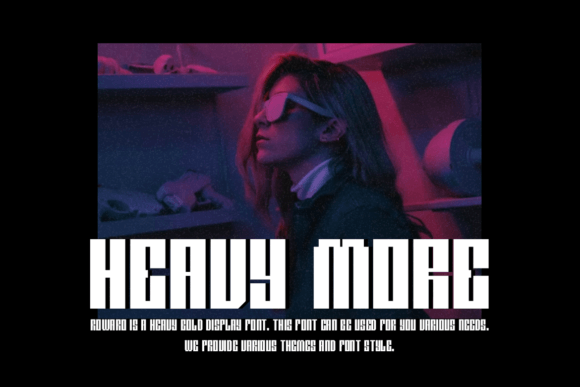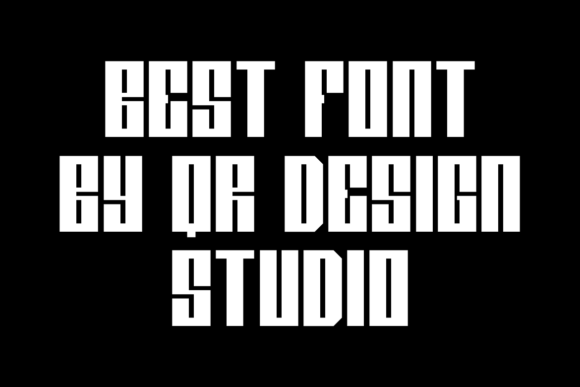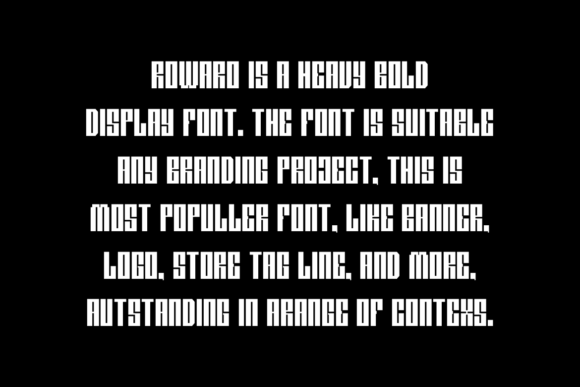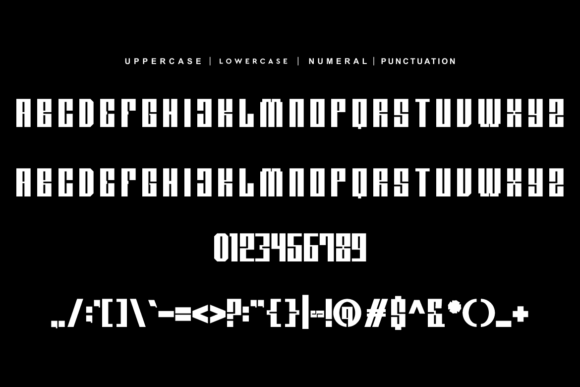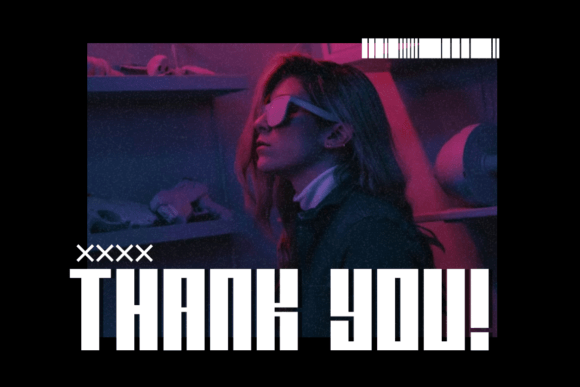
Introduction to Rowaro Font
As a designer, have you ever found yourself stuck on a creative project, struggling to convey the perfect message through typography? We’ve all been there, searching for that one font that will elevate our design and leave a lasting impression. For those seeking a bold and authentic display font, look no further than the Rowaro Font.
With its high-quality design, the Rowaro Font is a valuable resource for designers looking to add a touch of sophistication to their work. Whether you’re creating logos, product packaging, or signage, this font is sure to make a statement. And the best part? You can download it for free, complete with a transparent background, making it easy to integrate into your design project.
Key Features of Rowaro Font
- High-quality, professional design resource suitable for various creative projects
- Features a large character set, making it ideal for multilingual projects
- Supports a wide range of resolutions, ensuring crisp and clear text display at various zoom levels
- Designed with a modern and sleek aesthetic, perfect for contemporary design projects
Honest Review: Rowaro Font
As a designer, I’m always on the lookout for high-quality design resources to elevate my creative projects. Recently, I had the chance to try out the Rowaro Font, and I must say, it’s been a game-changer for me.
What works well: ✨ The font is incredibly versatile, suitable for a wide range of creative projects, from logos to brochures. The designer has done an excellent job in crafting a font that’s both modern and elegant, making it perfect for any design-related task. Additionally, the free download option makes it an attractive choice for designers on a budget.
- High-quality design that’s perfect for logos, brochures, and other creative projects
What doesn’t work well: ⚠️ While the Rowaro Font is excellent in many ways, it’s not without its limitations. The font family is relatively small, and some users might find it restrictive. Additionally, the font’s scalability could be improved for better legibility at smaller sizes.
Overall, I’m thoroughly impressed with the Rowaro Font. It’s a valuable addition to any designer’s toolkit, offering a unique blend of style and functionality. If you’re looking for a high-quality font to elevate your creative projects, I highly recommend giving it a try.
The Rowaro Font is a high-quality design resource ideal for creative projects requiring a unique touch. This versatile font can be used in various applications, from digital designs to print materials.
For optimal results, use the Rowaro Font on a transparent background to create a seamless design. Experiment with different font sizes and styles to find the perfect combination for your project.
The Rowaro Font is ideal for various creative projects, including:
- Business cards and stationery
- Digital designs and social media graphics